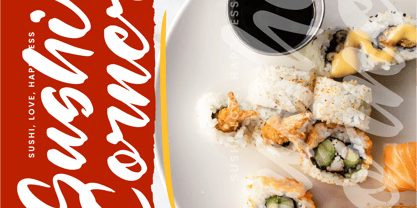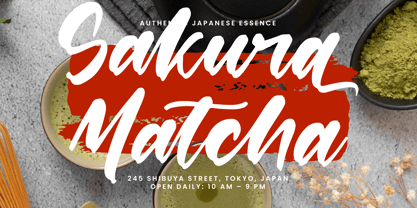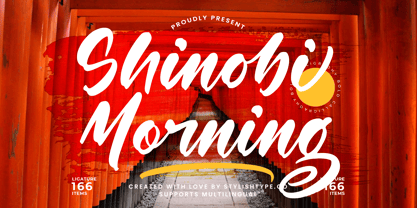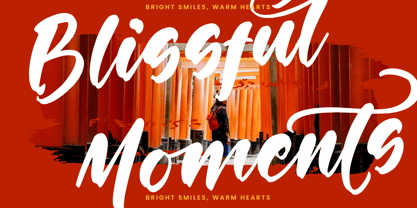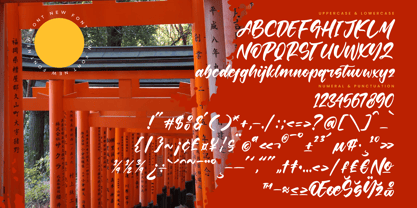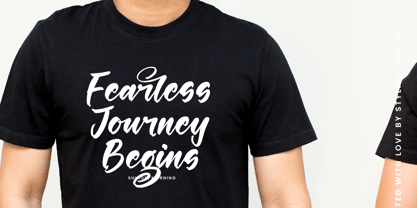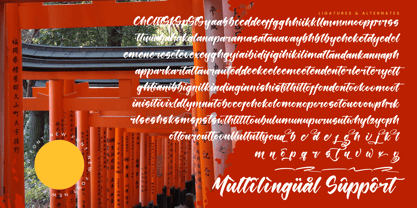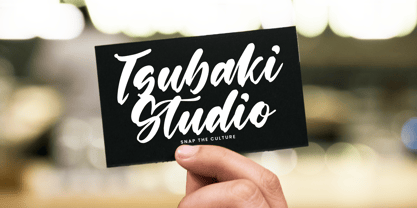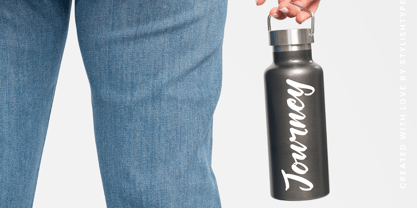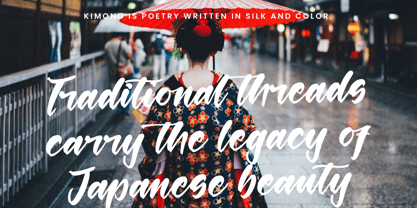
Shinobi Morning
by Stylishtype Studio
The Shinobi Morning Font Family was designed by Heru Utama Putra and published by Stylishtype Studio. Shinobi Morning contains 2 styles and family package options.
Shinobi Morning - Bold Calligraphy Font , from Stylishtype, Suitable for any projects such as: logos, branding projects, homeware designs, product packaging, mugs, quotes, posters, shopping bags, t-shirts, book covers, name card, invitation cards, greeting cards, label, photography, watermark, special events, and all your other luxury and beautiful projects that need a Luxury Script taste.